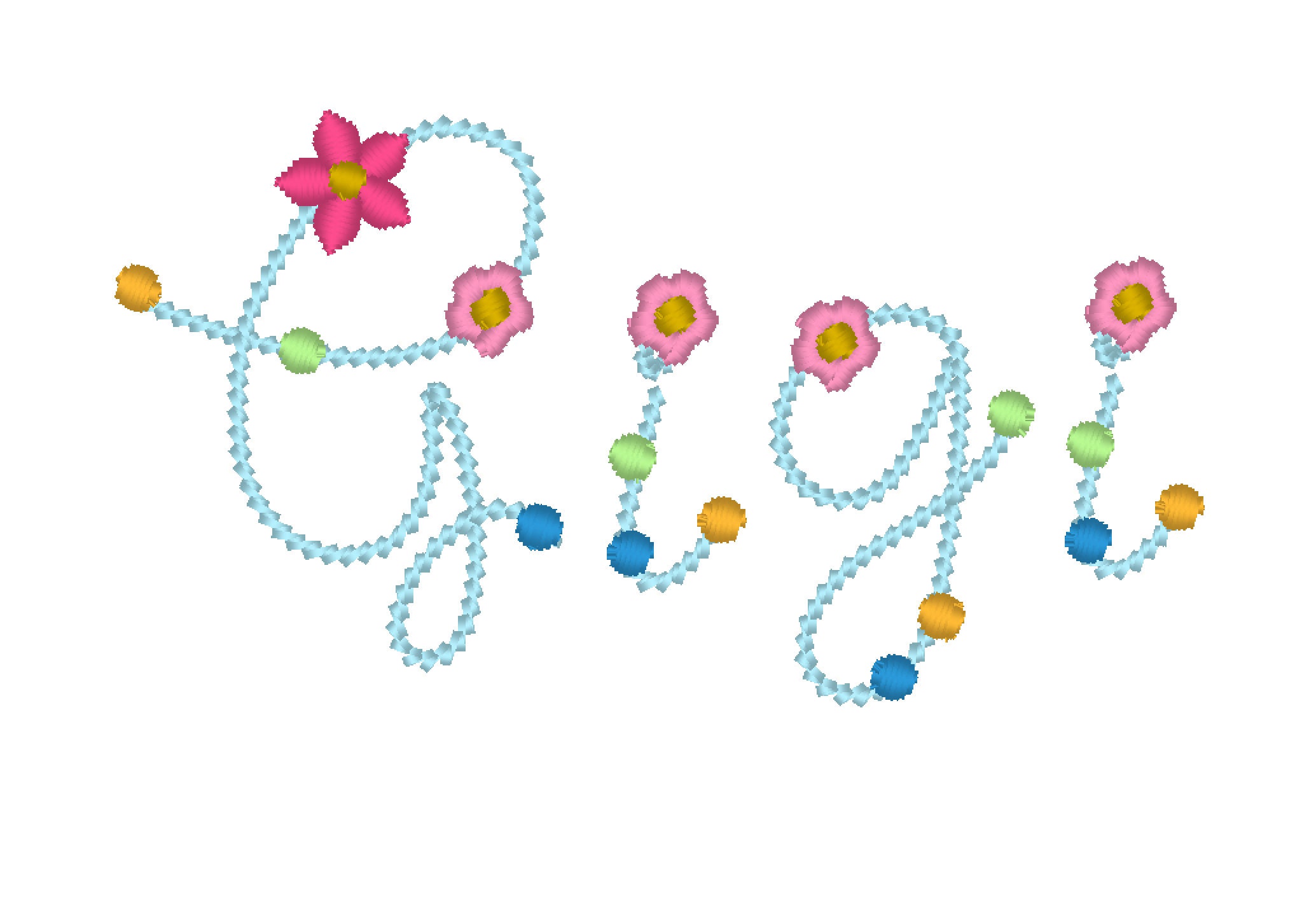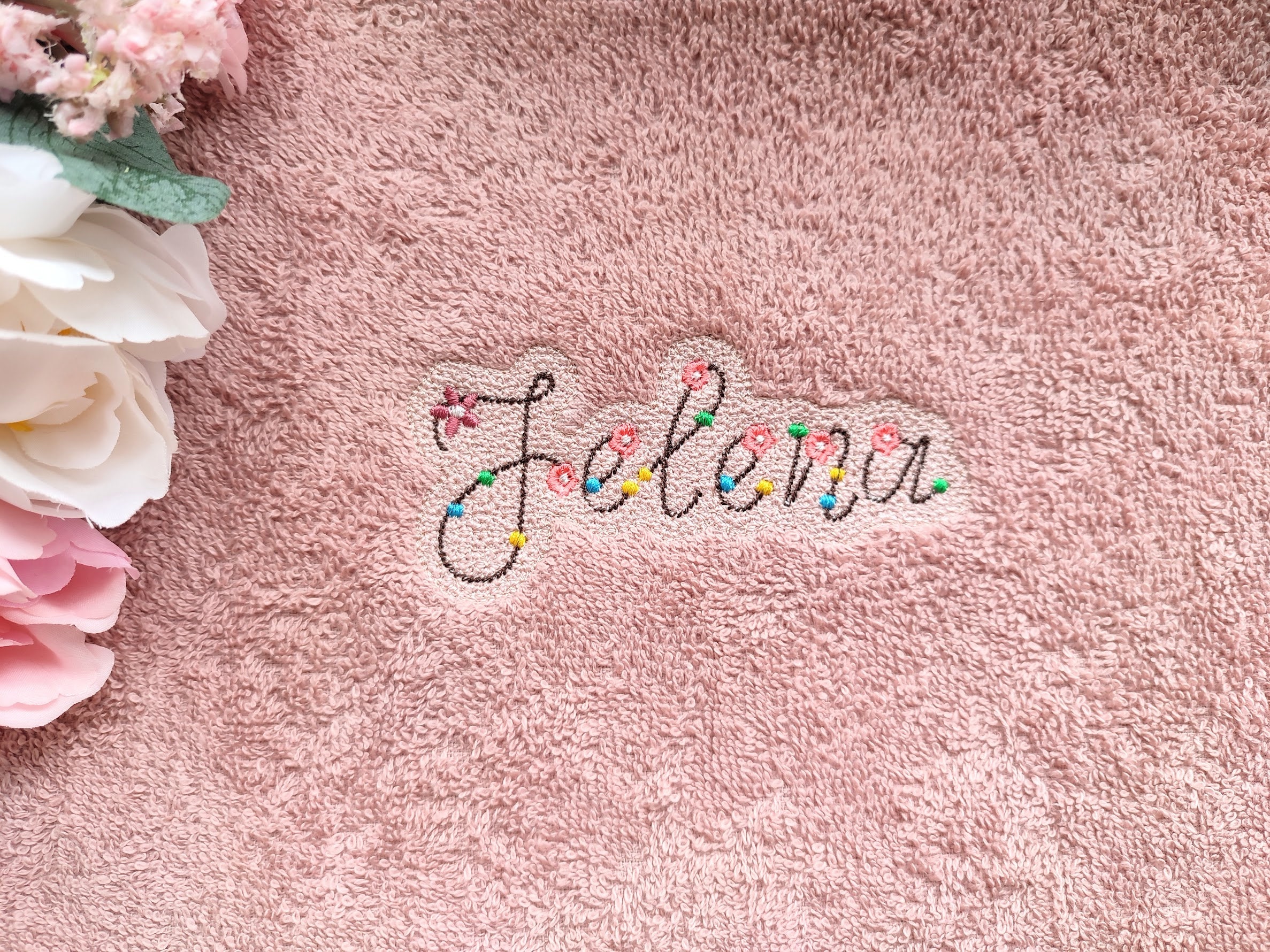
Pearl handwriting FONT floral gigi line outline light stitch daisy alphabet machine embroidery designs letters punctuation marks BX included
Whole alphabet A-Z, uppercase letters, lower case letters and special punctuation